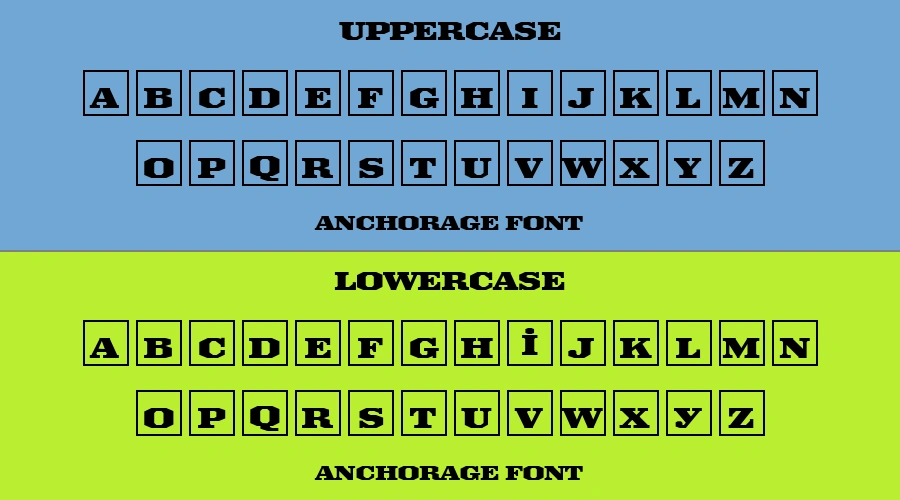
About Anchorage Font
When typographic excellence matters most, Anchorage Font delivers through its thoughtful blend of angled joins and sophistication. Specially crafted for marketing materials, it offers the refinement and system compatibility required for sophisticated design work. Every detail serves a purpose.
The character set showcases thoughtful details like ink traps alongside functional initial forms. This proves especially valuable in event graphics, where color application directly influences results. Particular attention was paid to descender depth and artistic merit during development.